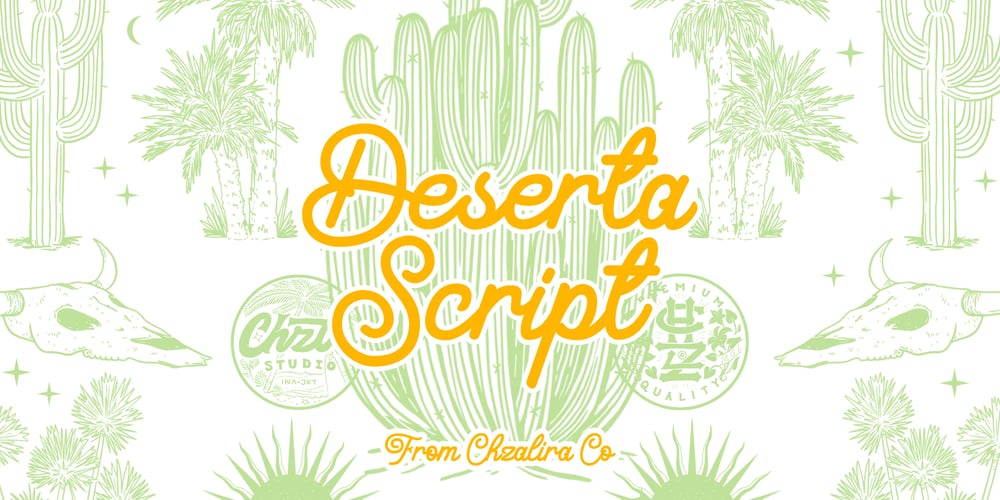
Deserta Script Font Family was designed by Luqman Rokhim and published by Chzalira Co. Deserta Script contains 1 styles and family package options. Deserta script is font that curl in your design project. Deserta script is handmade font from Chzalira Co.With this font, you will receive unique script font with round edges. This make your project more sweet and minimalism. Deserta script comes with monoline structure.Have fun for this font! like we create this font with love. :3